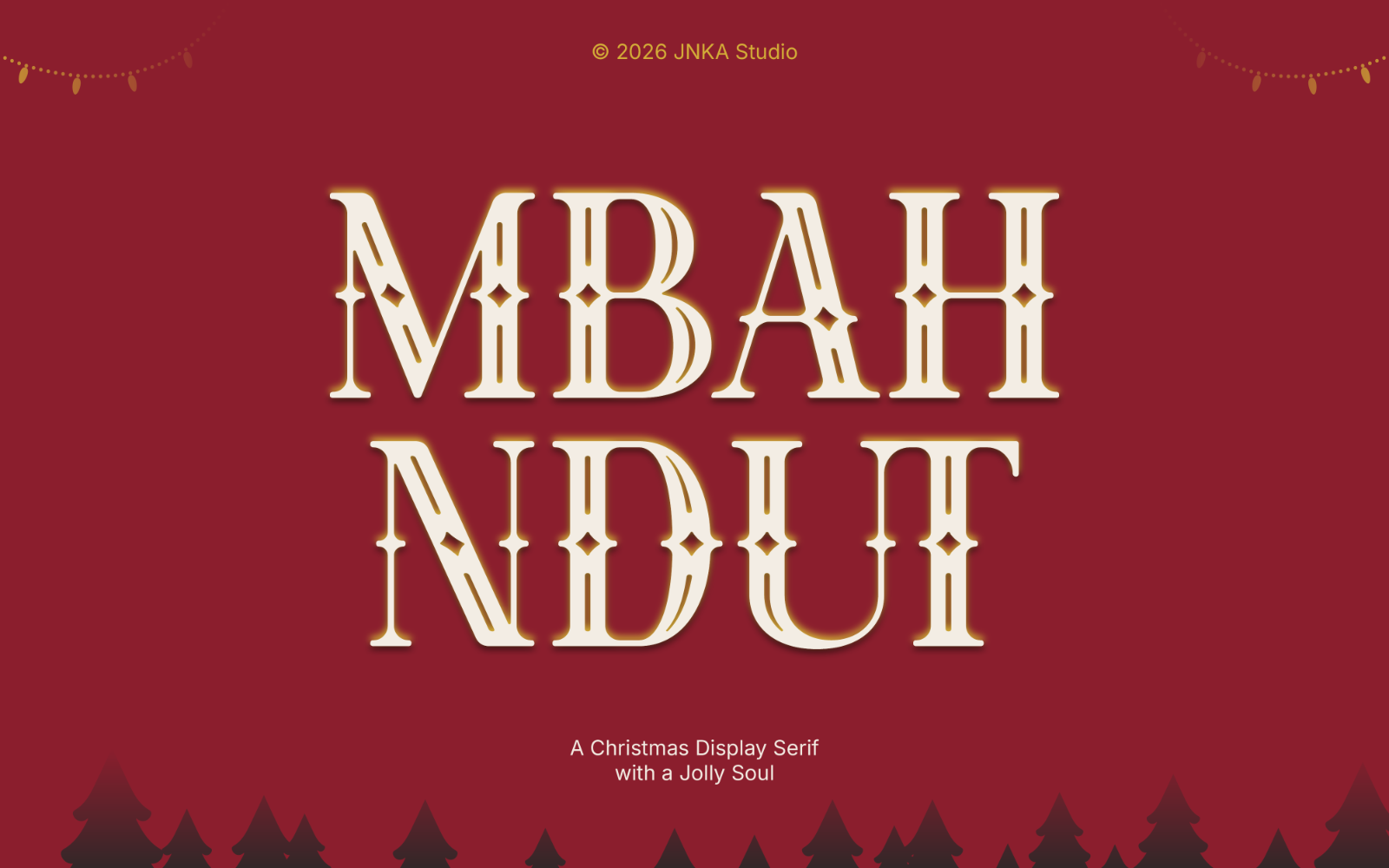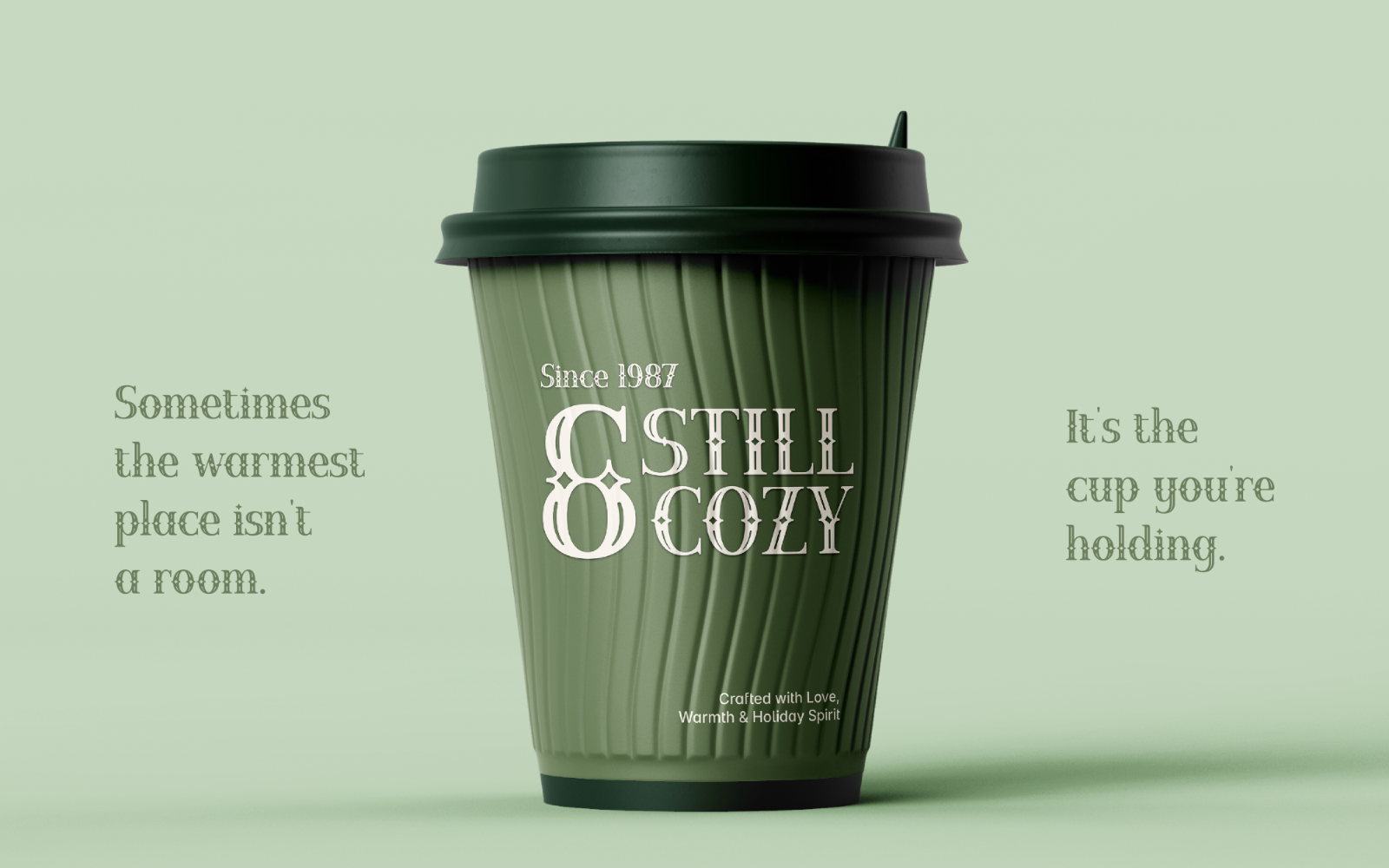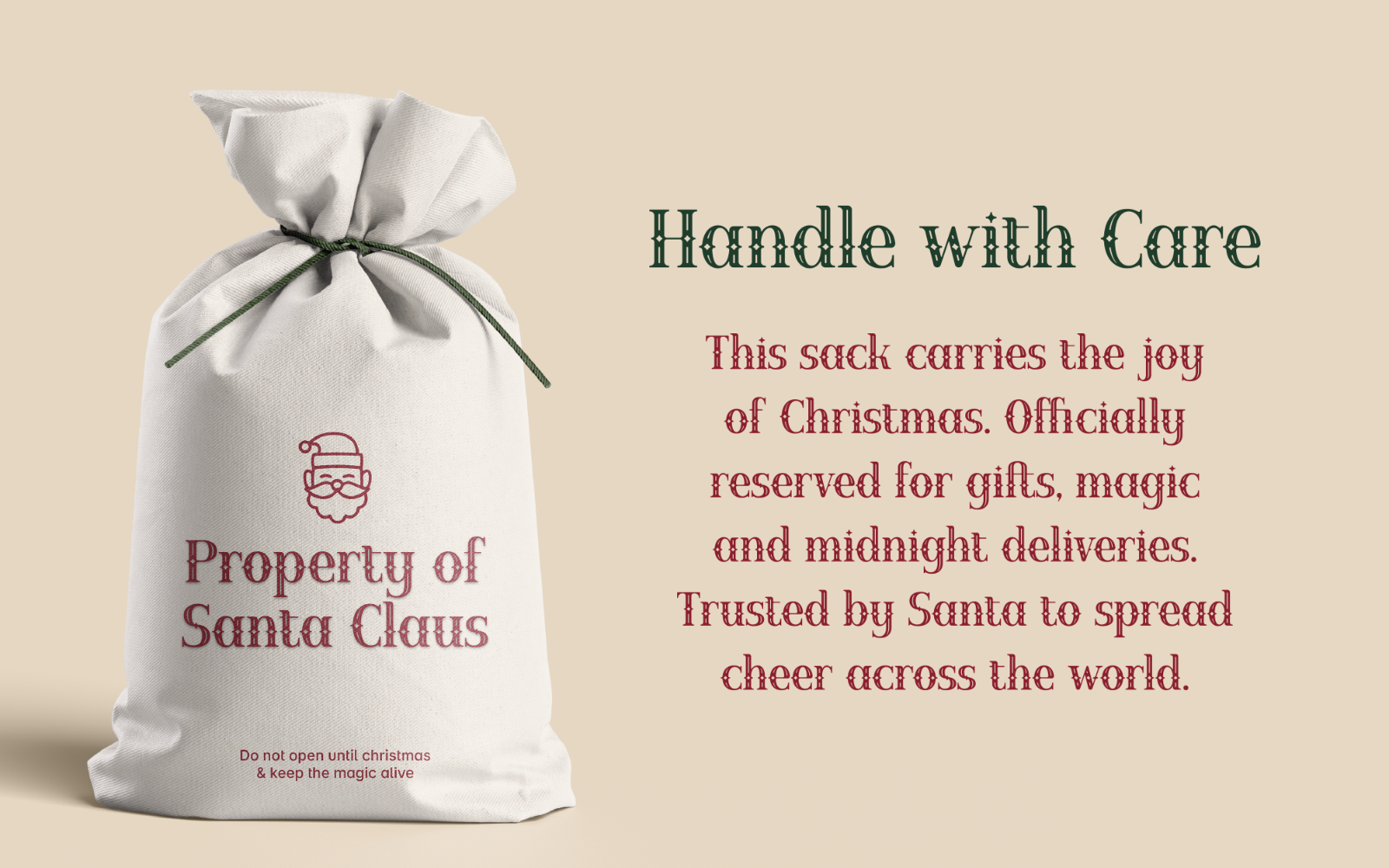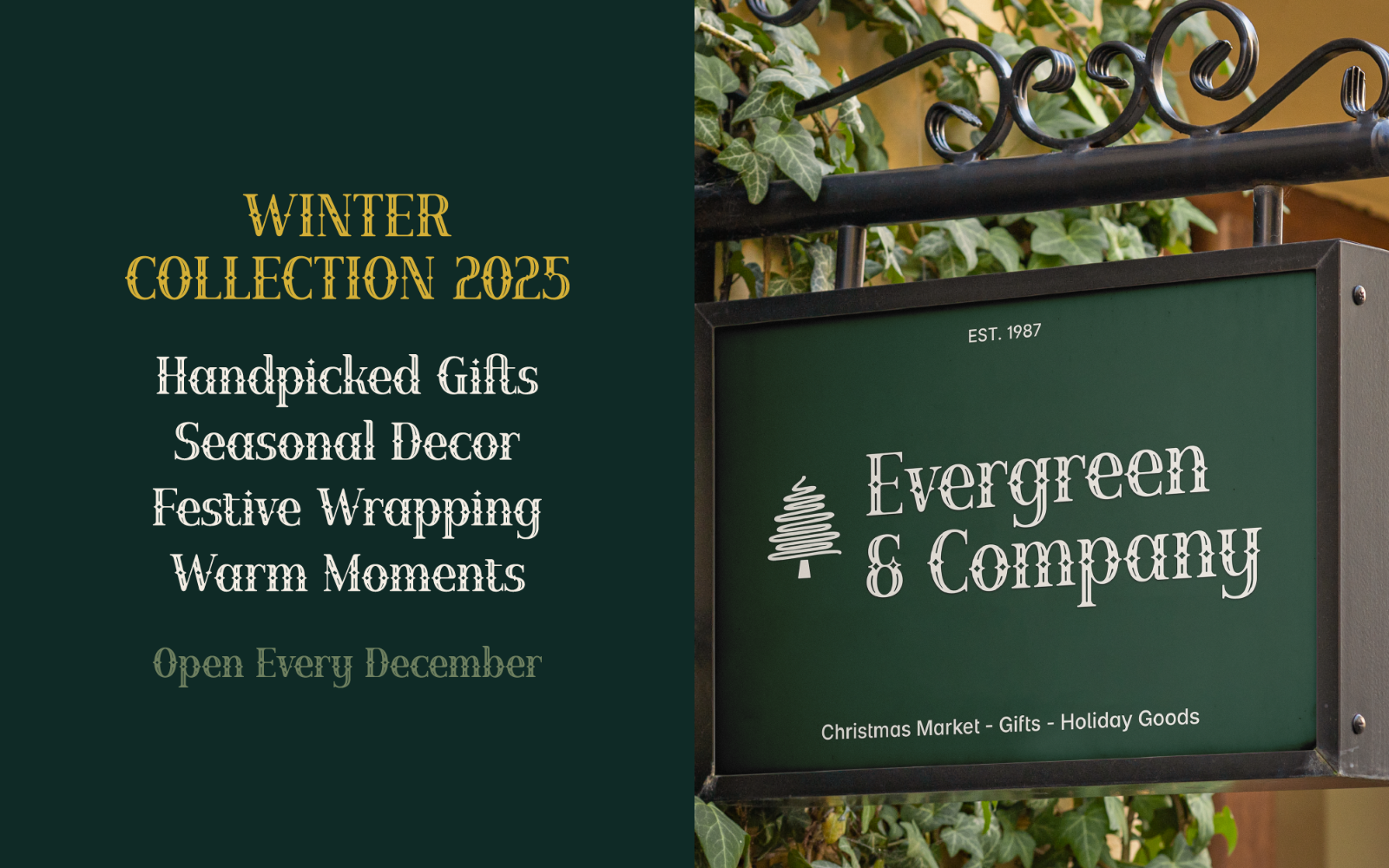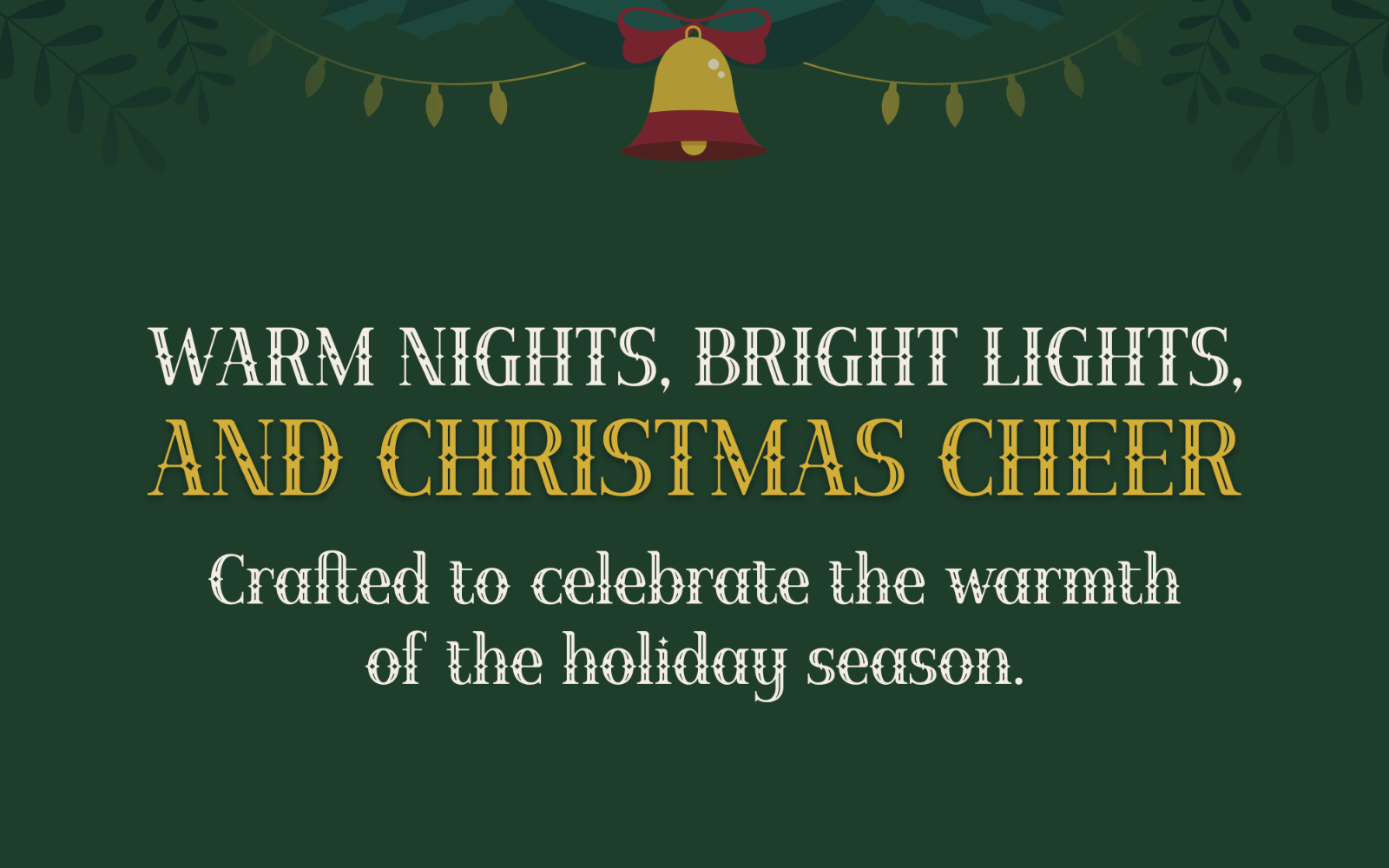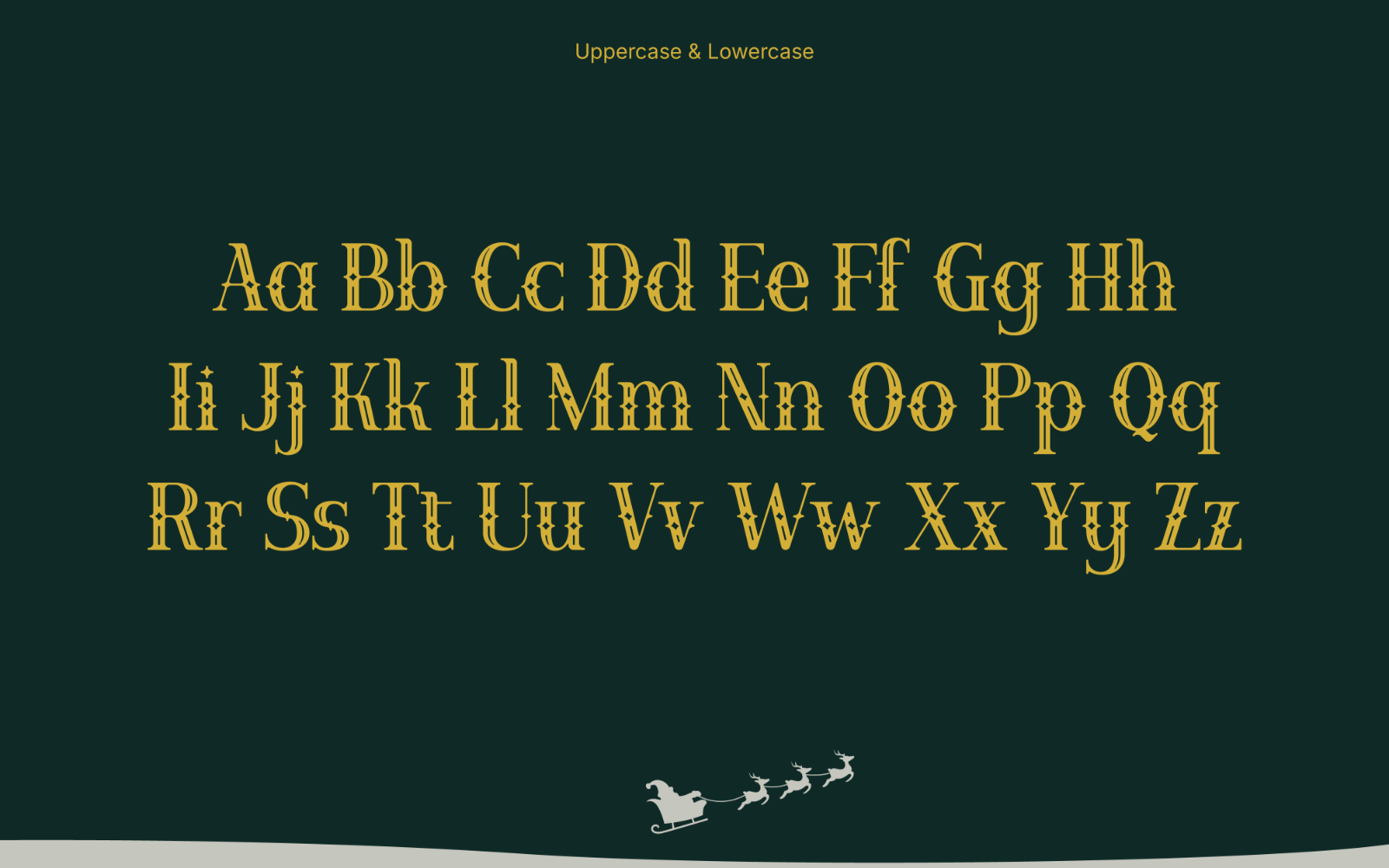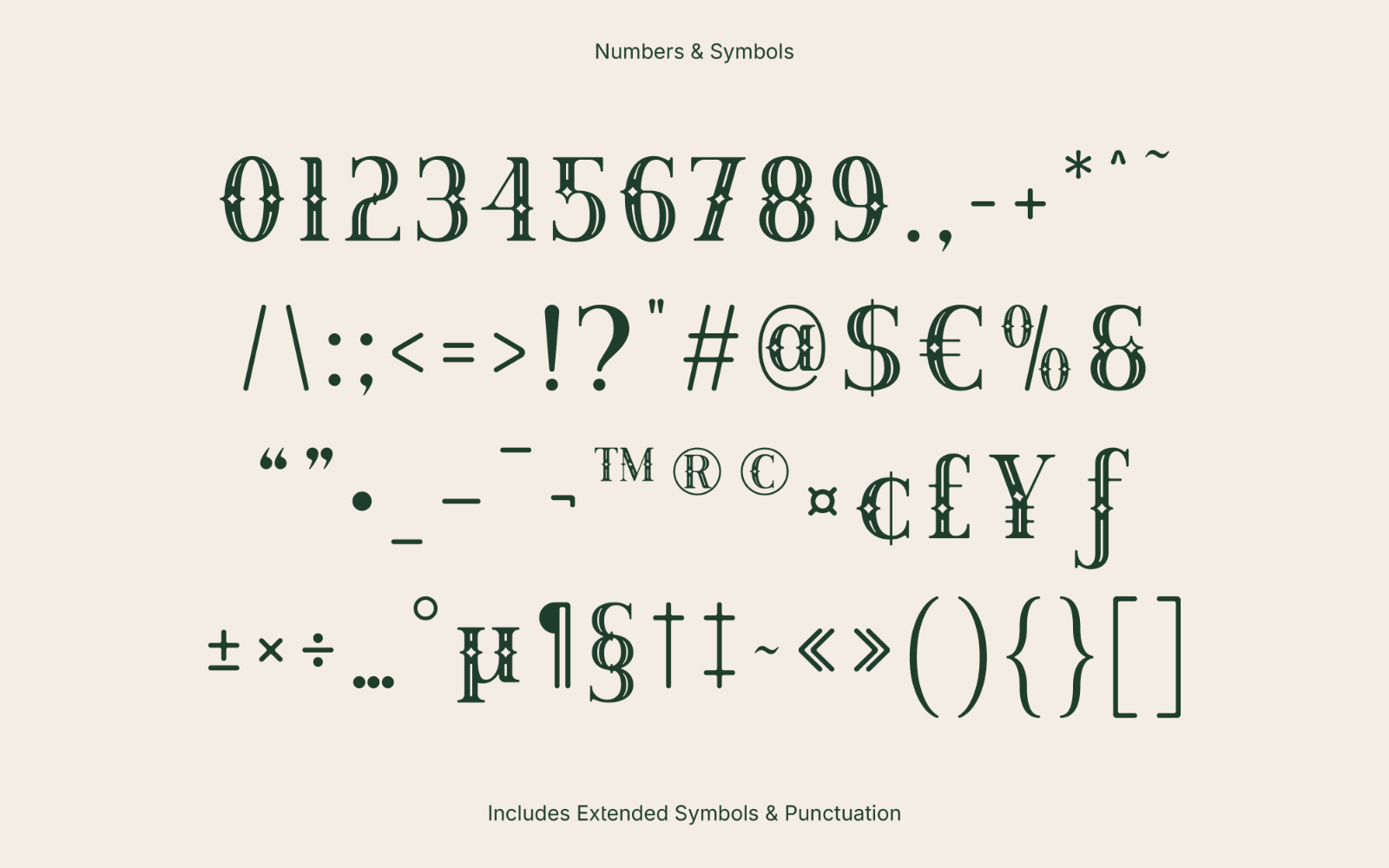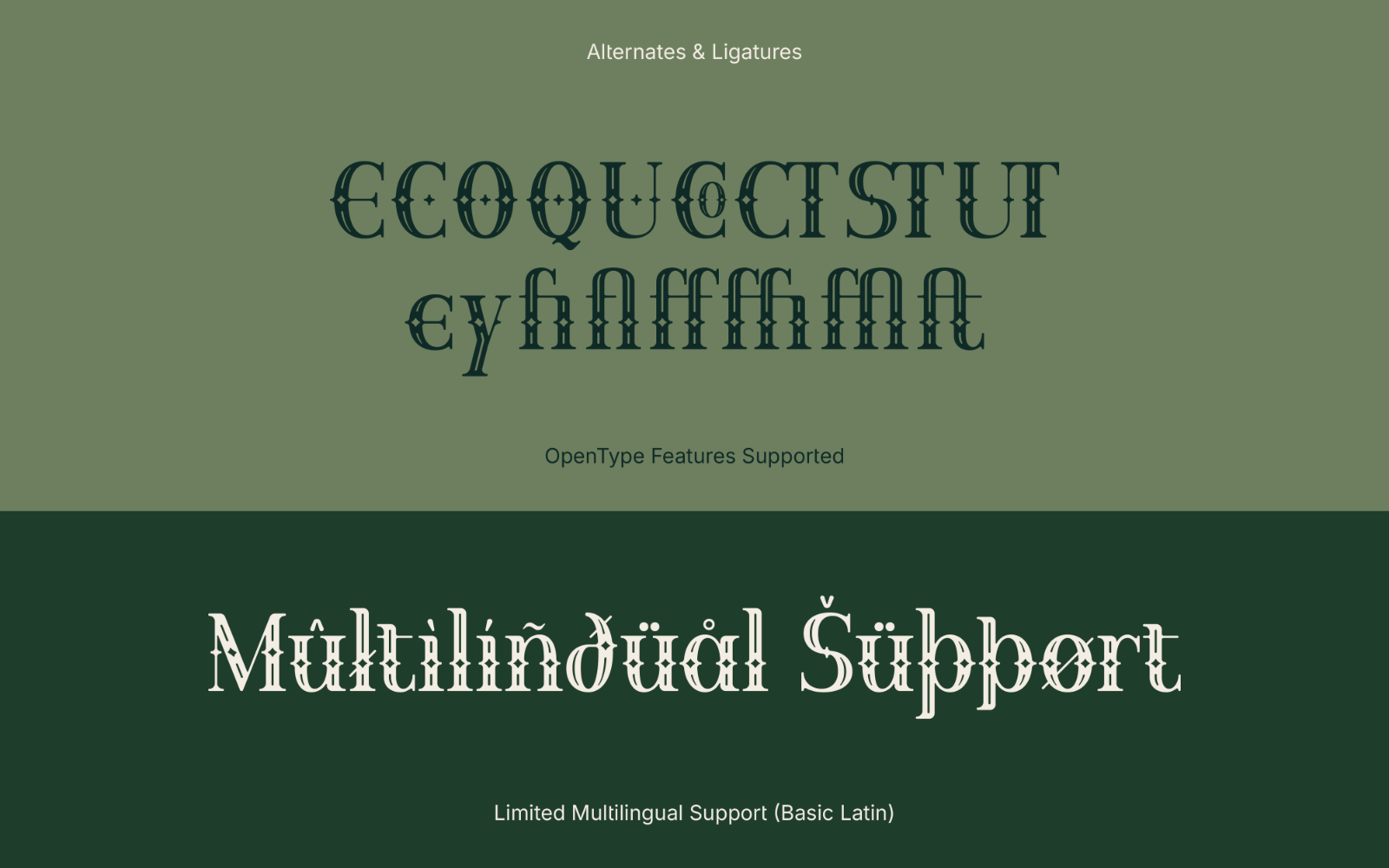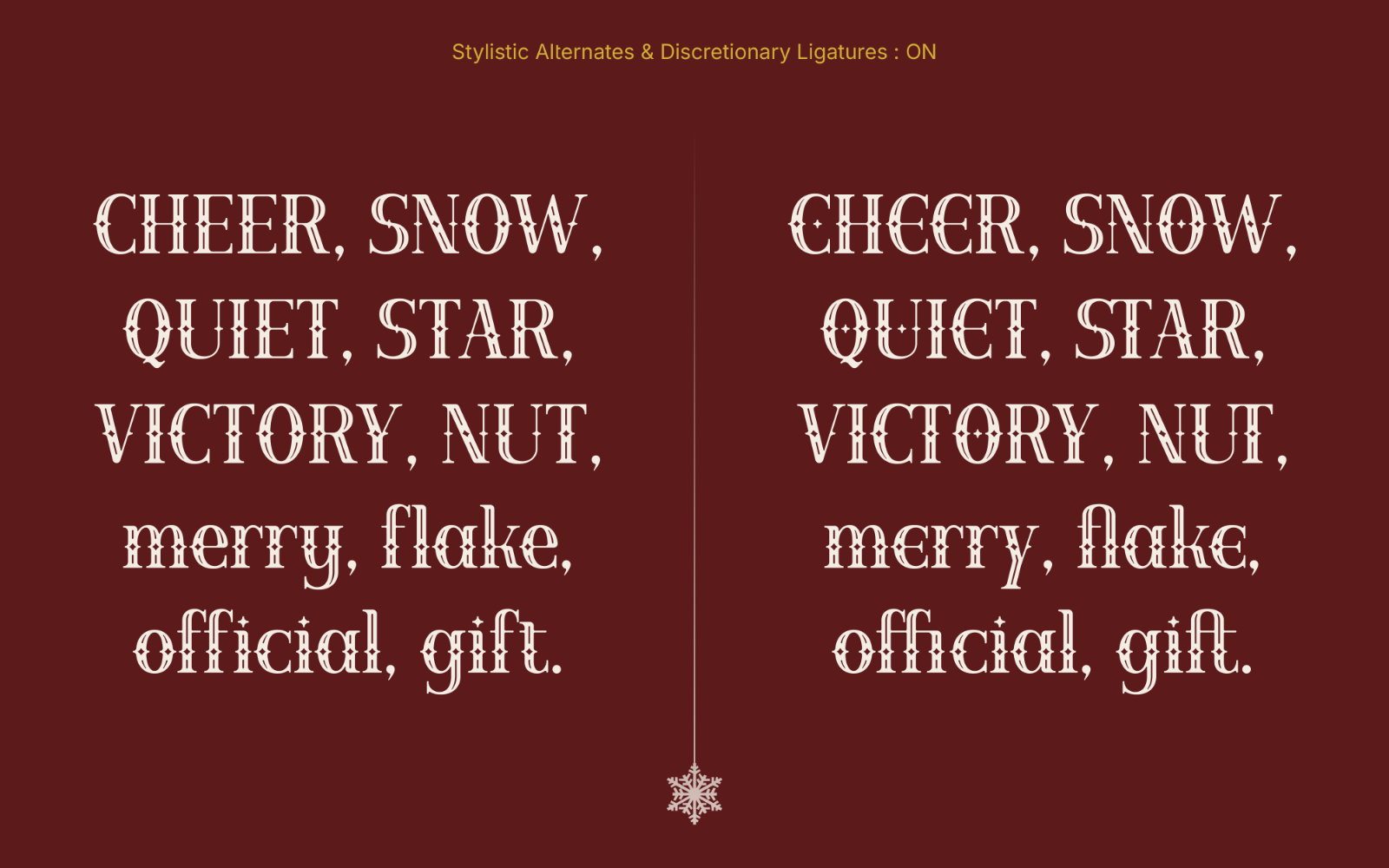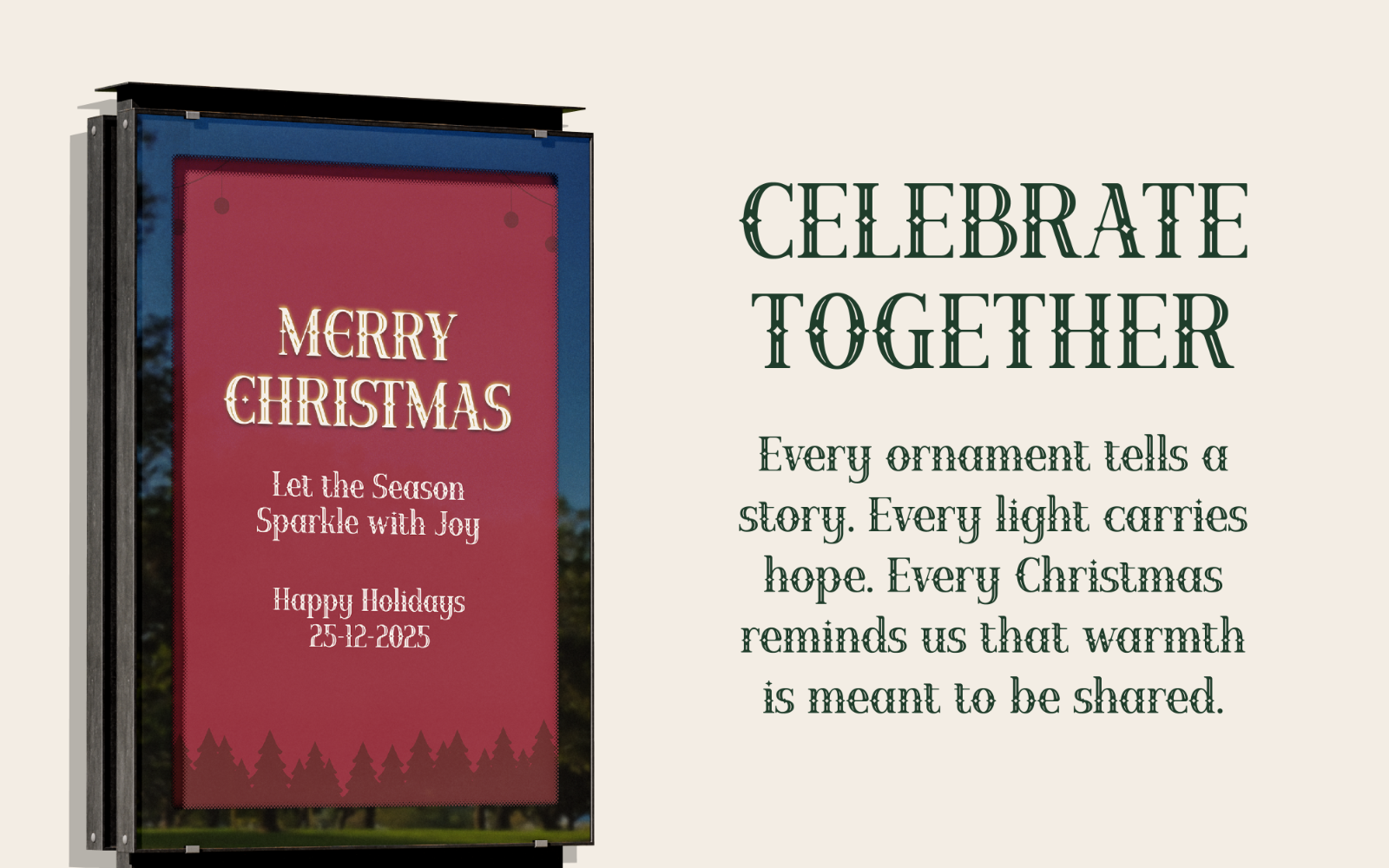
Mbah Ndut
Is a playful decorative serif inspired by the warmth and joy of the Christmas season, featuring charming star details that bring every letter to life. Designed with rich alternates and expressive ligatures, it adds a festive and distinctive touch to headlines, branding, and holiday themed designs. Perfect for posters, packaging, greeting cards, and more, Mbah Ndut delivers a cozy, cheerful spirit in every composition.
Font Features:
• Uppercase & Lowercase Letters
• Numbers & Standard Punctuation
• Symbols & Special Characters
• Basic Multilingual Support (Latin-based)
• Stylistic Alternates
• Standard & Decorative Ligatures
• Carefully Adjusted Kerning
• Approx. 248 Glyphs
• OpenType Features